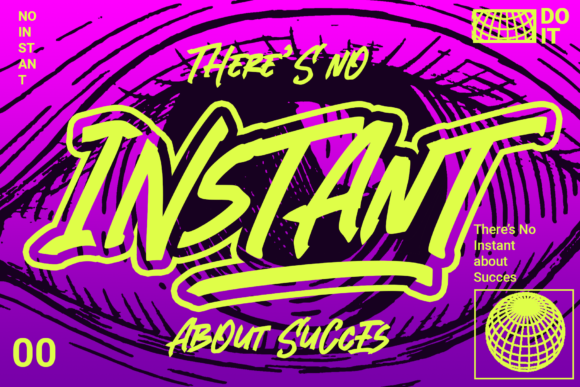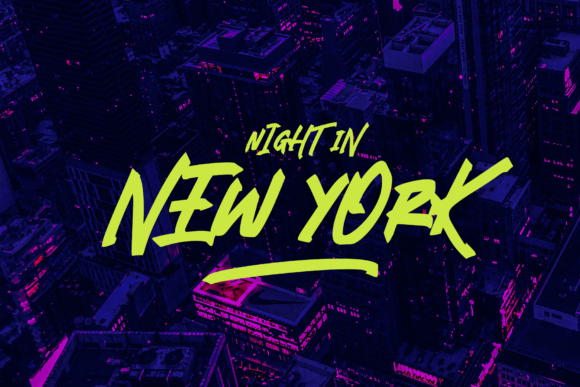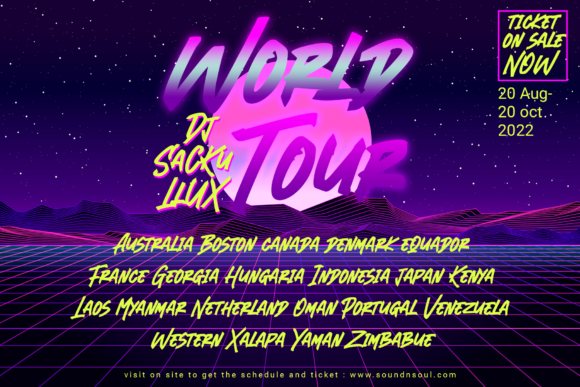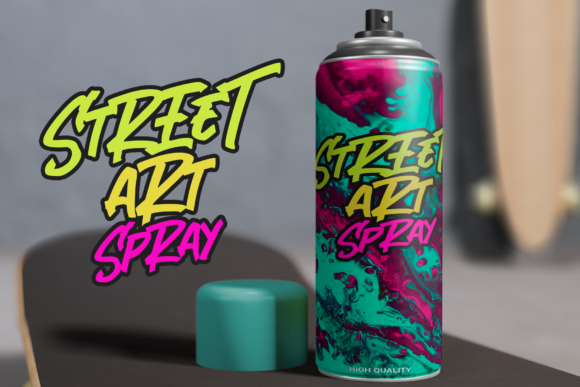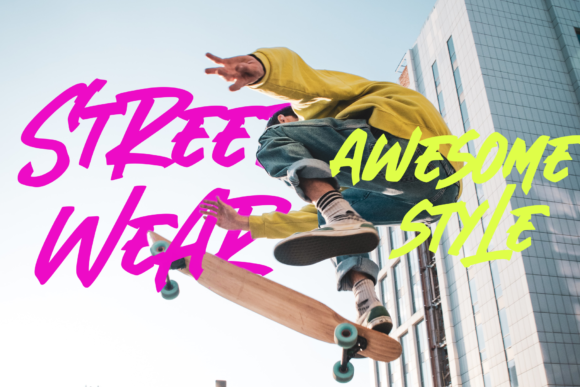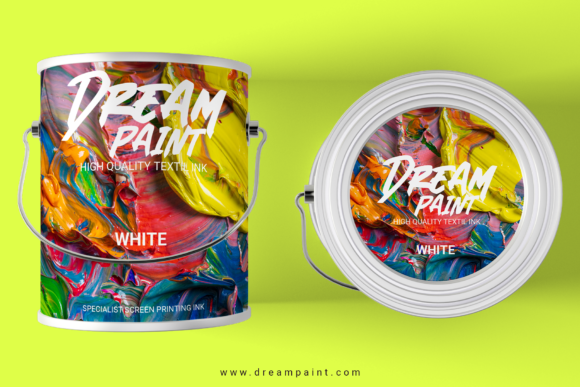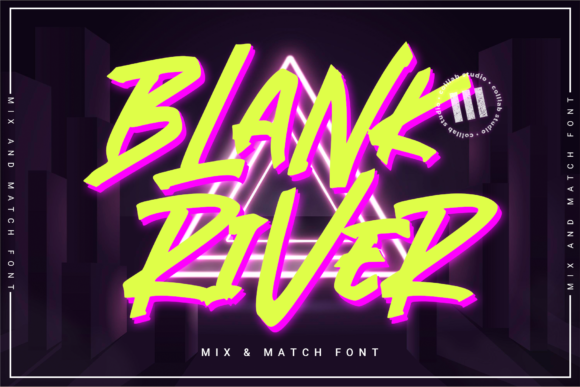
Introducing Blank River Font: Elevate Your Designs with a Unique Display Font
In the world of design, typography plays a crucial role in conveying messages, expressing creativity, and capturing attention. A well-chosen font can elevate a design project from ordinary to extraordinary. If you’re a designer, crafter, or DIY enthusiast looking for a unique and versatile font to take your projects to the next level, look no further than Blank River Font. In this article, we’ll explore the features, benefits, and uses of Blank River Font, and why it’s a must-have for any design enthusiast.
What is Blank River Font?
Blank River Font is a distinctive display font designed to make a statement. Its unique style and characteristics make it perfect for a wide range of design projects, including branding, headings, signatures, logos, labels, and more. Whether you’re working on a business card, brochure, website, or social media graphic, Blank River Font is sure to impress.
Key Features of Blank River Font
- Unique and eye-catching design: Blank River Font boasts a one-of-a-kind design that’s sure to grab attention and leave a lasting impression.
- Versatile and adaptable: This font is suitable for various design projects, from elegant and sophisticated to bold and edgy.
- High-quality and legible: Blank River Font is designed with clarity and readability in mind, ensuring that your message is conveyed effectively.
- Easy to use and customize: This font is compatible with most design software and can be easily customized to fit your project’s specific needs.
Benefits of Using Blank River Font
So, why choose Blank River Font for your design projects? Here are just a few benefits:
- Stand out from the crowd: With Blank River Font, you can create designs that are truly unique and attention-grabbing.
- Enhance your brand’s identity: This font can help you establish a strong visual identity for your brand, making it more recognizable and memorable.
- Save time and effort: Blank River Font is designed to be easy to use and customize, saving you time and effort in the design process.
- Elevate your design skills: By incorporating Blank River Font into your designs, you can take your skills to the next level and create professional-looking projects.
How to Use Blank River Font in Your Designs
Blank River Font is an incredibly versatile font that can be used in a variety of design projects. Here are some ideas to get you started:
- Branding and logos: Use Blank River Font to create a unique and memorable logo for your business or brand.
- Headings and titles: Add a touch of elegance and sophistication to your headings and titles with this beautiful font.
- Signatures and stationery: Create professional-looking signatures and stationery with Blank River Font.
- Labels and packaging: Use this font to create eye-catching labels and packaging for your products.
- Web and social media graphics: Add a pop of personality to your website and social media graphics with Blank River Font.